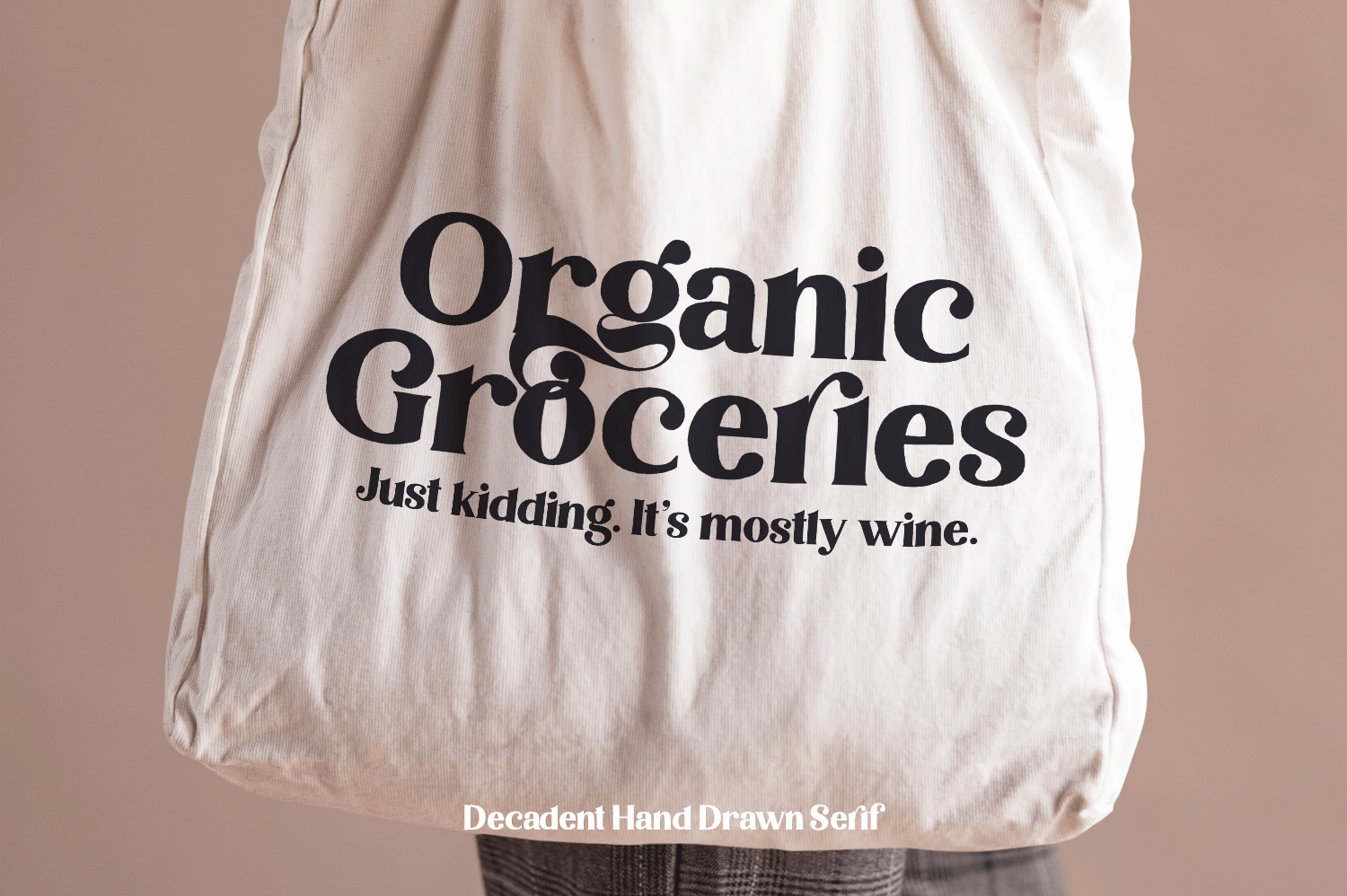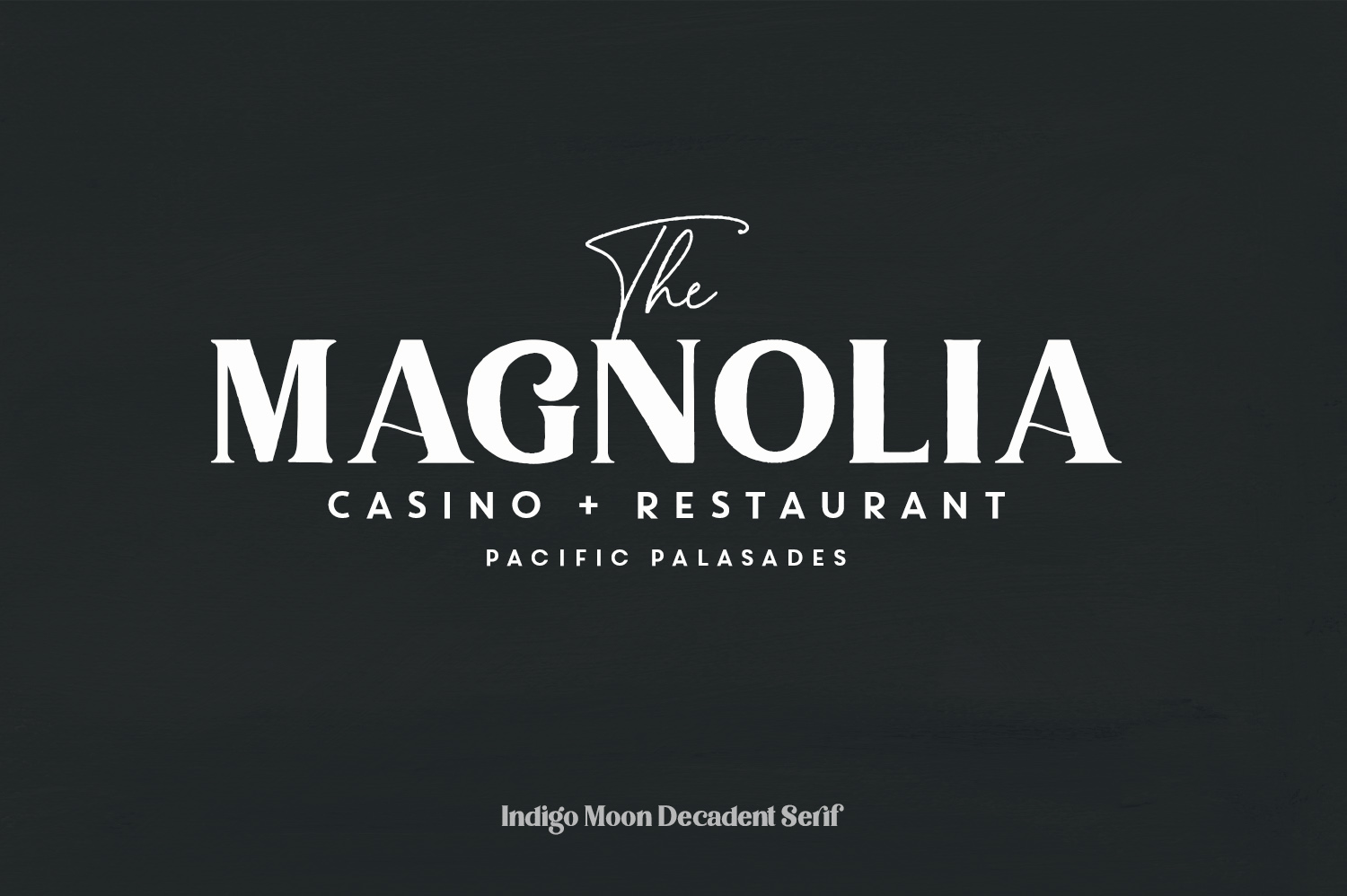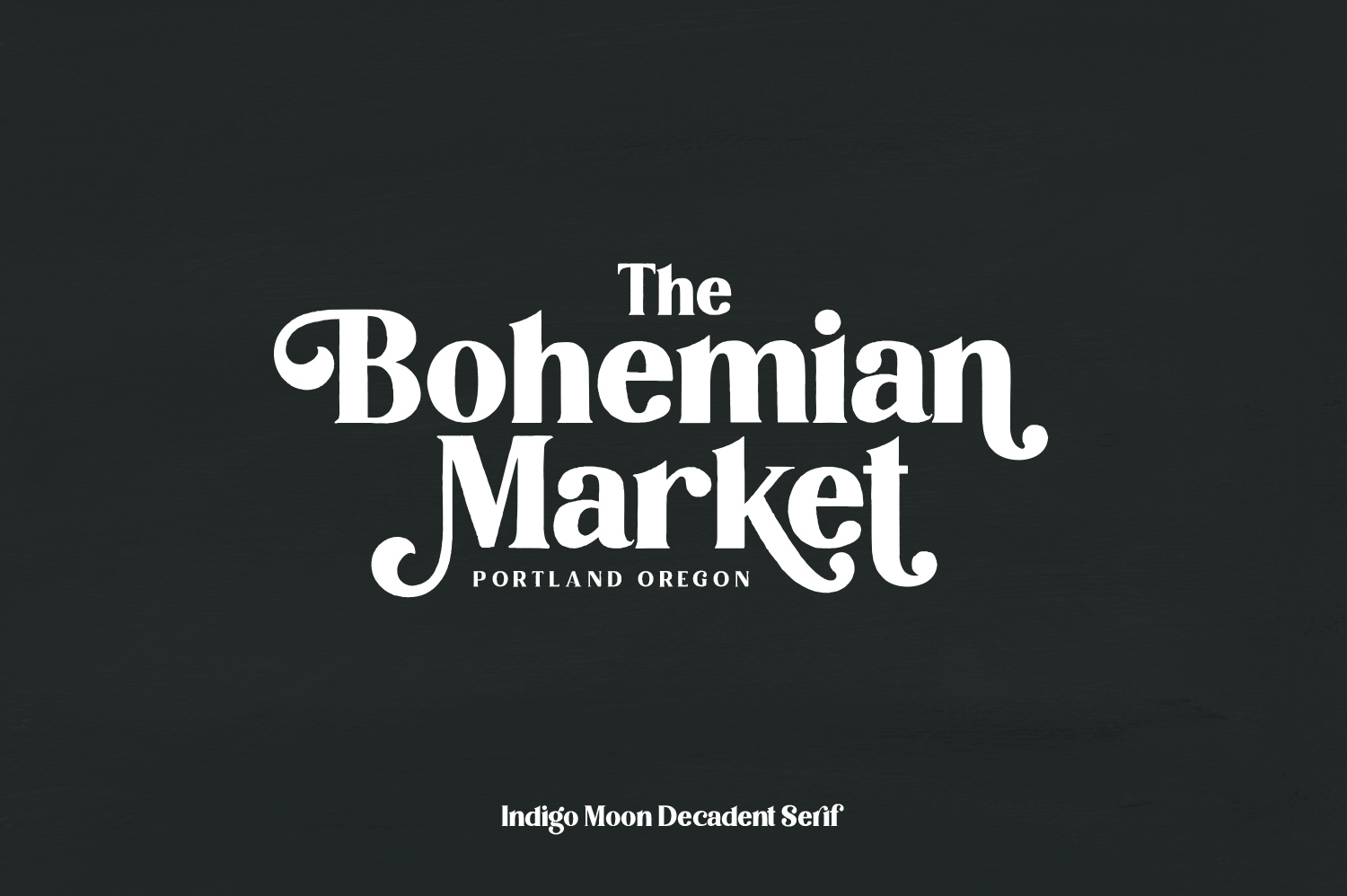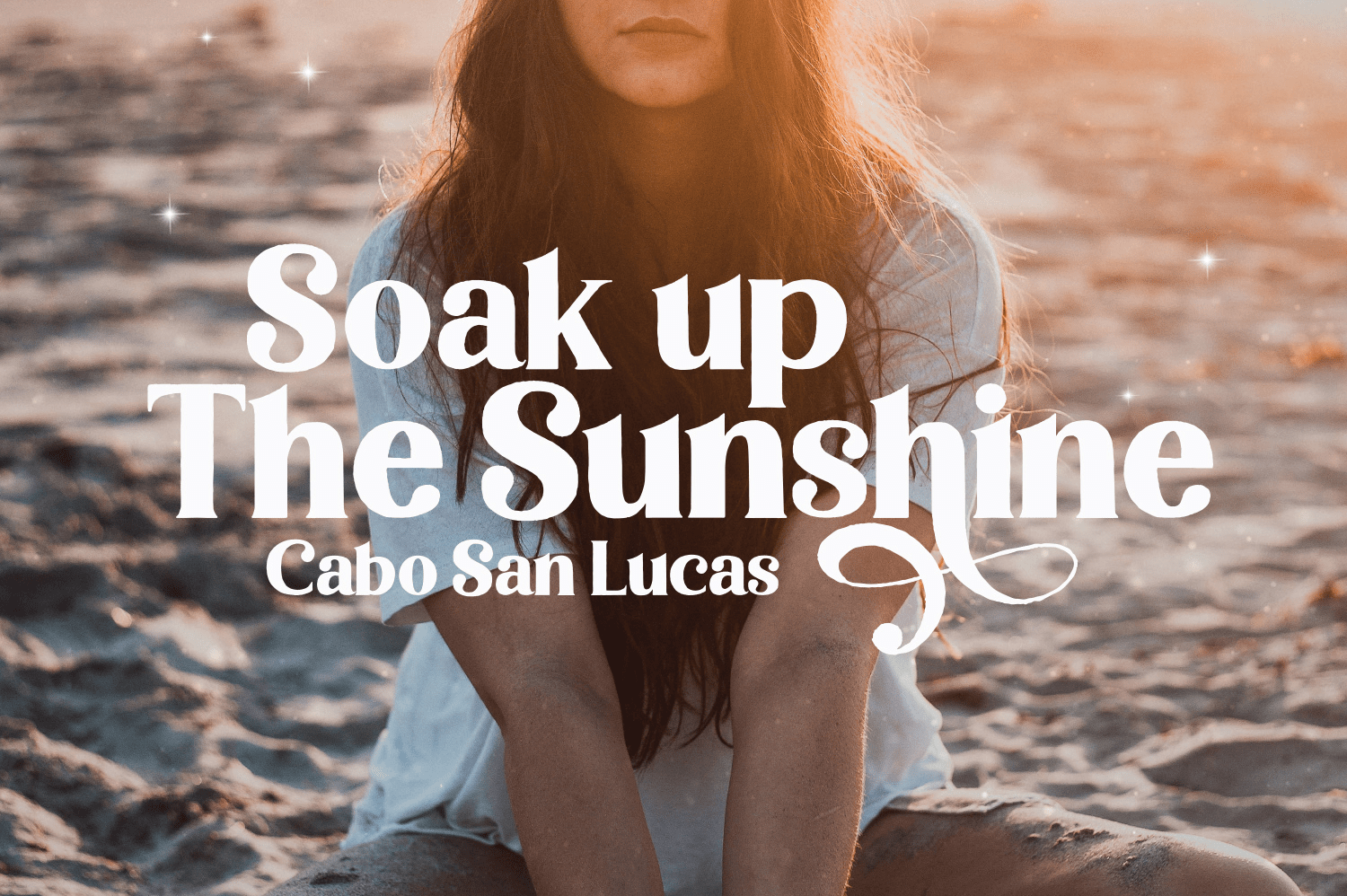
Introducing Indigo Moon – a decadent, classic serif with over 150 hand-illustrated alternates, and preserved texture, for a uniquely vintage, yet modern feel. Each letterform has a slightly rough exterior that works beautifully to enhance Indigo Moon\’s…